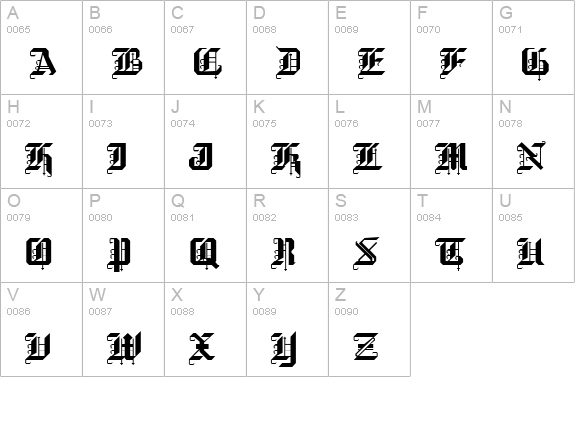
Gothic Normal Font Details
Gothic Normal is the standard, neutral variant in the Gothic typeface family \xE2\x80\x94 well suited to general body text, paragraphs, and standard typographic work.
Gothic Normal font is a striking and versatile typeface that exudes a sense of mystery and elegance. Its bold, gothic-inspired letterforms make it perfect for adding a touch of drama to your designs. Whether you're working on a poster, logo, or website, Gothic Normal font will surely make a statement. The best part? This unique font is available for free download at FontsMarket.com. Simply visit the website to get your hands on this captivating typeface and start incorporating it into your creative projects today. Don't miss out on the opportunity to enhance your designs with the timeless appeal of Gothic Normal font.